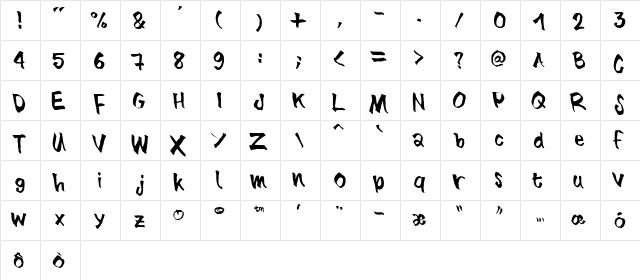
Blue Brush Normal Normal
Design Context for Blue Brush Normal Typeface
Blue Brush Normal brings a calligraphic fluidity to the page — its connecting strokes and expressive curves give it an unmistakably human quality.
Font Pairing: Combine Blue Brush Normal with a simple geometric sans for maximum contrast — the tension between flowing curves and clean structure is a classic typographic pairing.
Pro Tip: Use Blue Brush Normal for short runs of text — names, titles, or taglines. Extended body copy in script faces tires the eye quickly.